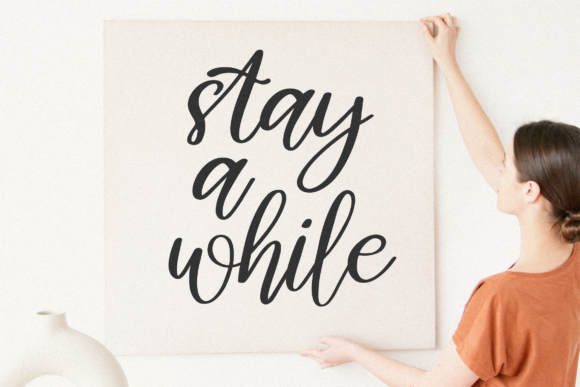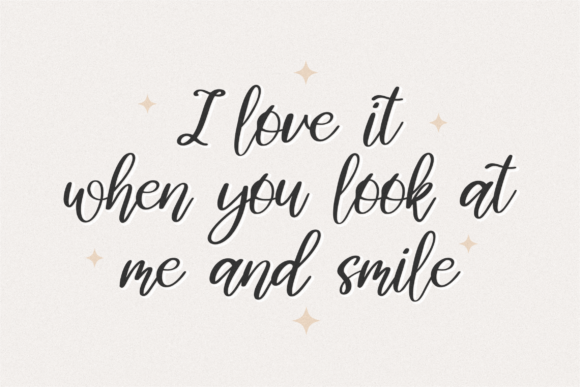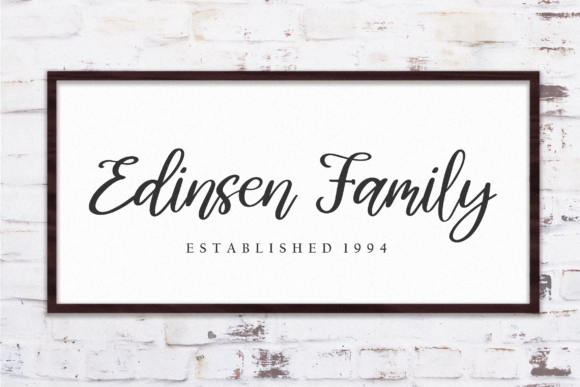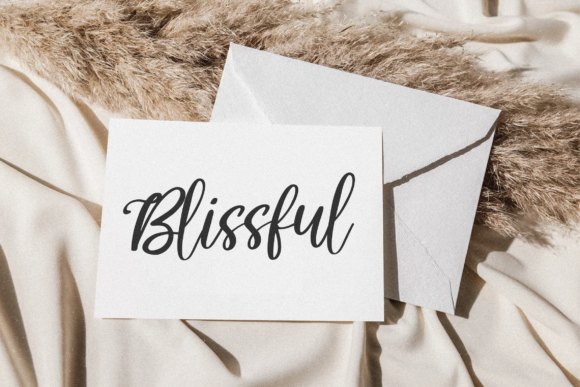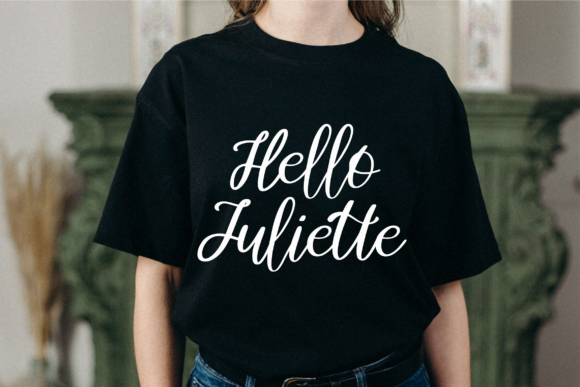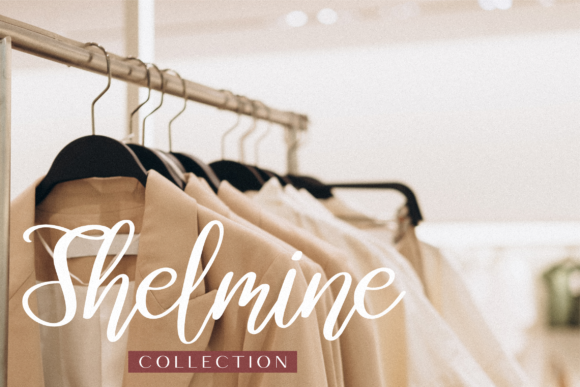
Introduction to Meanshine Font
Meanshine is a lovely script font featuring charming, playful characters that seem to dance along the baseline.
Add this font to your most creative ideas, and notice how it makes them stand out .
Key Features of Meanshine Font